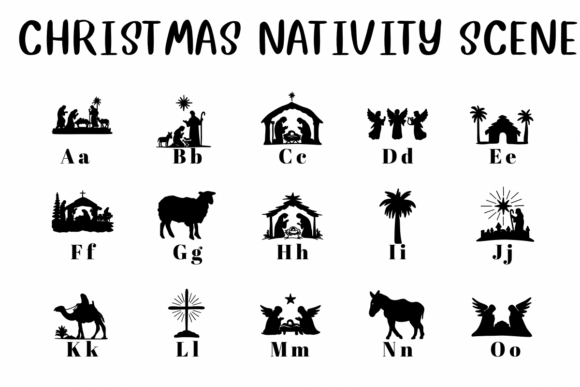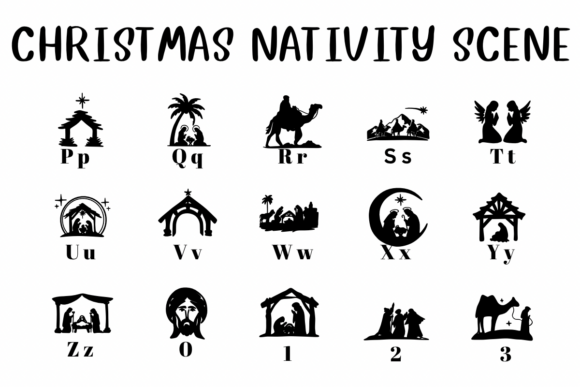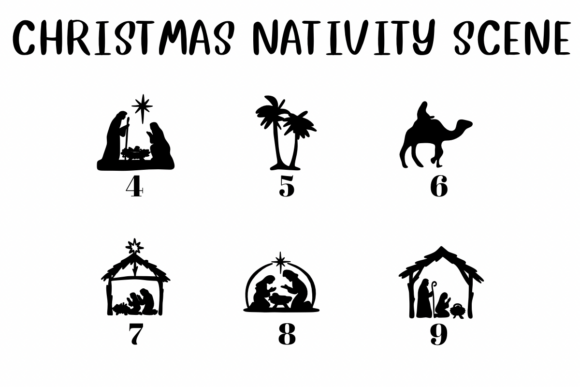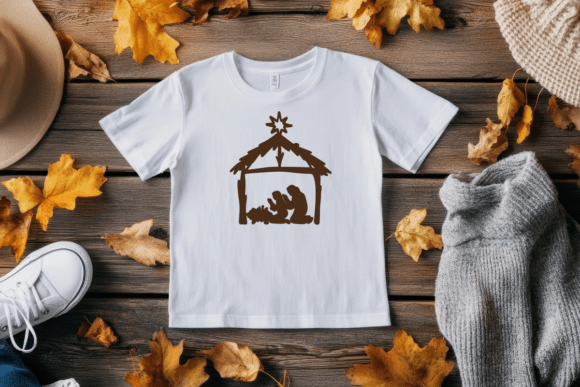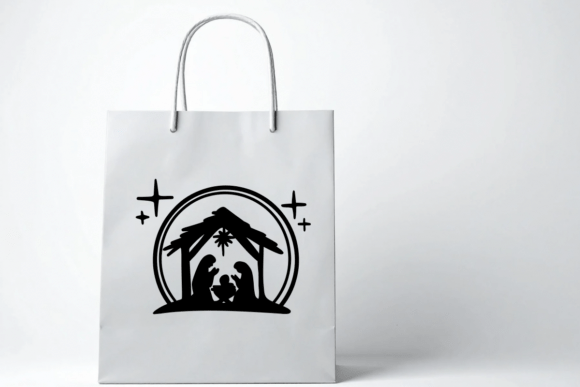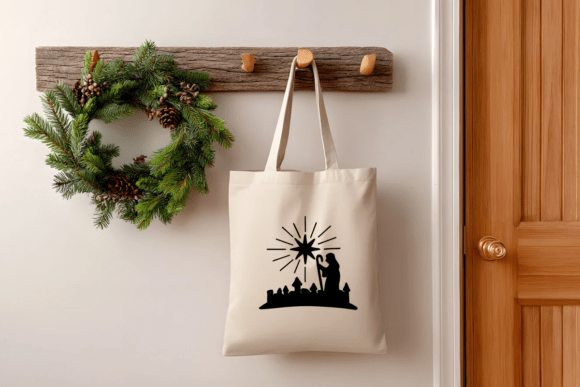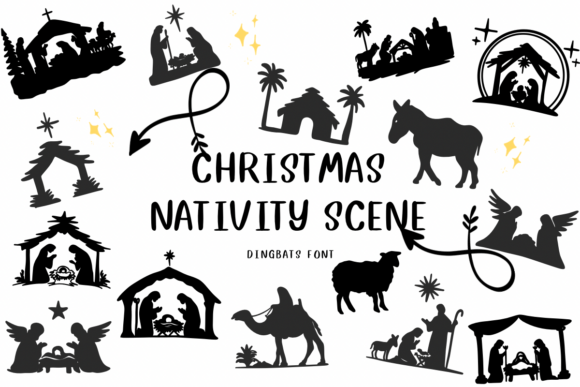
Christmas Nativity Scene Font: A Lovely Dingbats Font for Festive Projects
Are you looking for a unique and festive font to add to your Christmas projects? Look no further than the Christmas Nativity Scene font! This lovely dingbats font is perfect for designers and crafters who want to add a touch of holiday cheer to their work. In this article, we’ll take a closer look at the Christmas Nativity Scene font, its features, and how you can use it to create stunning festive projects.
What is Christmas Nativity Scene Font?
Christmas Nativity Scene font is a dingbats font that features beautiful illustrations of Christmas nativity scenes, including the manger, Mary, Joseph, Jesus, and the animals. The font is made up of glyphs that can be used to create stunning holiday-themed projects, from Christmas cards and invitations to decorations and crafts.
Features of Christmas Nativity Scene Font
The Christmas Nativity Scene font has several features that make it a great choice for designers and crafters:
- Unique illustrations: The font features beautiful and unique illustrations of Christmas nativity scenes that will add a touch of elegance to your projects.
- Scalable: The font is scalable, which means you can use it for a variety of projects, from small crafts to large banners.
How to Use Christmas Nativity Scene Font
Using the Christmas Nativity Scene font is easy! Here are a few ways you can use it in your festive projects:
Create Christmas Cards and Invitations
Use the Christmas Nativity Scene font to create beautiful Christmas cards and invitations. Simply type out your message using the font, and add your favorite images or graphics to make it more festive.
Make Festive Decorations
Use the font to create festive decorations, such as garlands, banners, and signs. You can use the glyphs to create a beautiful nativity scene that will add a touch of holiday cheer to your home or office.
Add to Your Holiday Crafts
The Christmas Nativity Scene font is perfect for adding to your holiday crafts, such as scrapbooking, paper crafting, and card making. Use the glyphs to create beautiful borders, frames, and embellishments for your projects.
Tips and Tricks for Using Christmas Nativity Scene Font
Here are a few tips and tricks for using the Christmas Nativity Scene font:
- Experiment with different sizes and colors: Don’t be afraid to experiment with different sizes and colors to find the perfect look for your project.
- Combine with other fonts: Combine the Christmas Nativity Scene font with other fonts to create a unique and eye-catching look.
- Use in combination with images: Use the font in combination with images to create a beautiful and festive design.
The Christmas Nativity Scene font is a lovely dingbats font that is perfect for designers and crafters who want to add a touch of holiday cheer to their projects. With its unique illustrations, ease of use, and scalability, it’s a great choice for a variety of festive projects. Whether you’re creating Christmas cards and invitations, decorations, or holiday crafts, this font is sure to bring joy and festivity to your work.